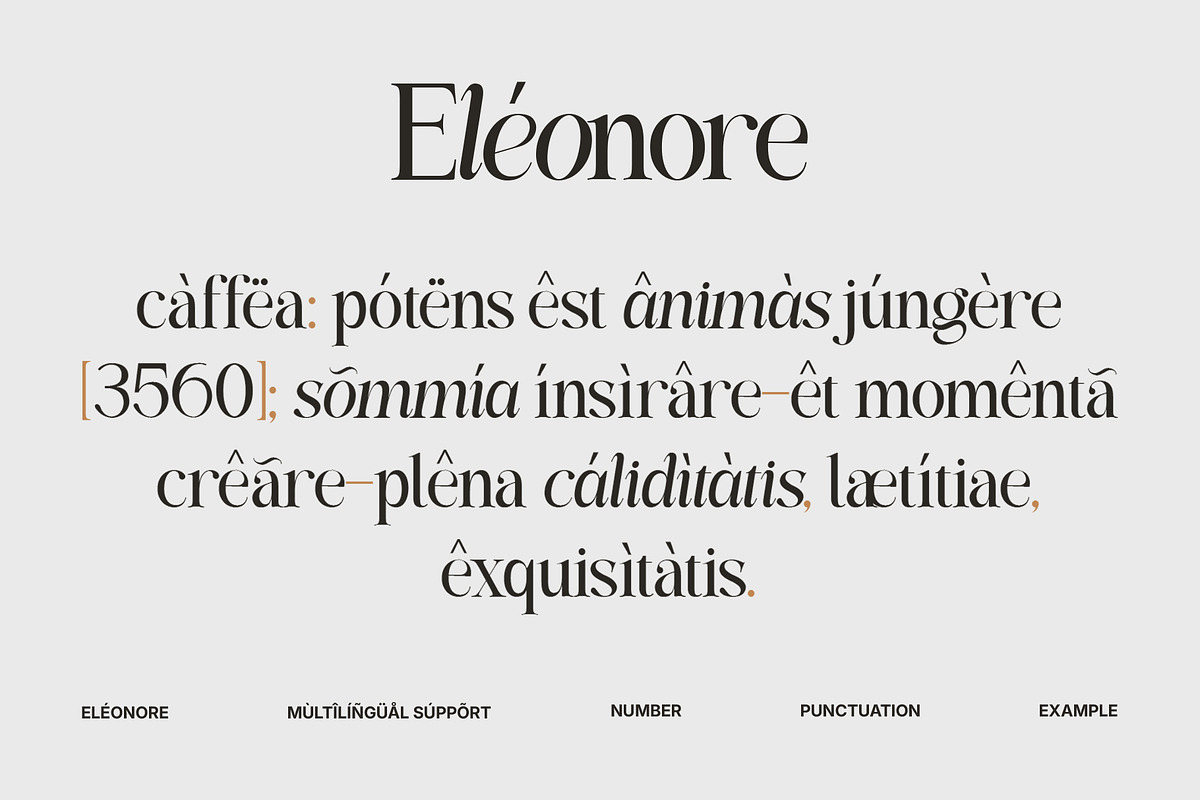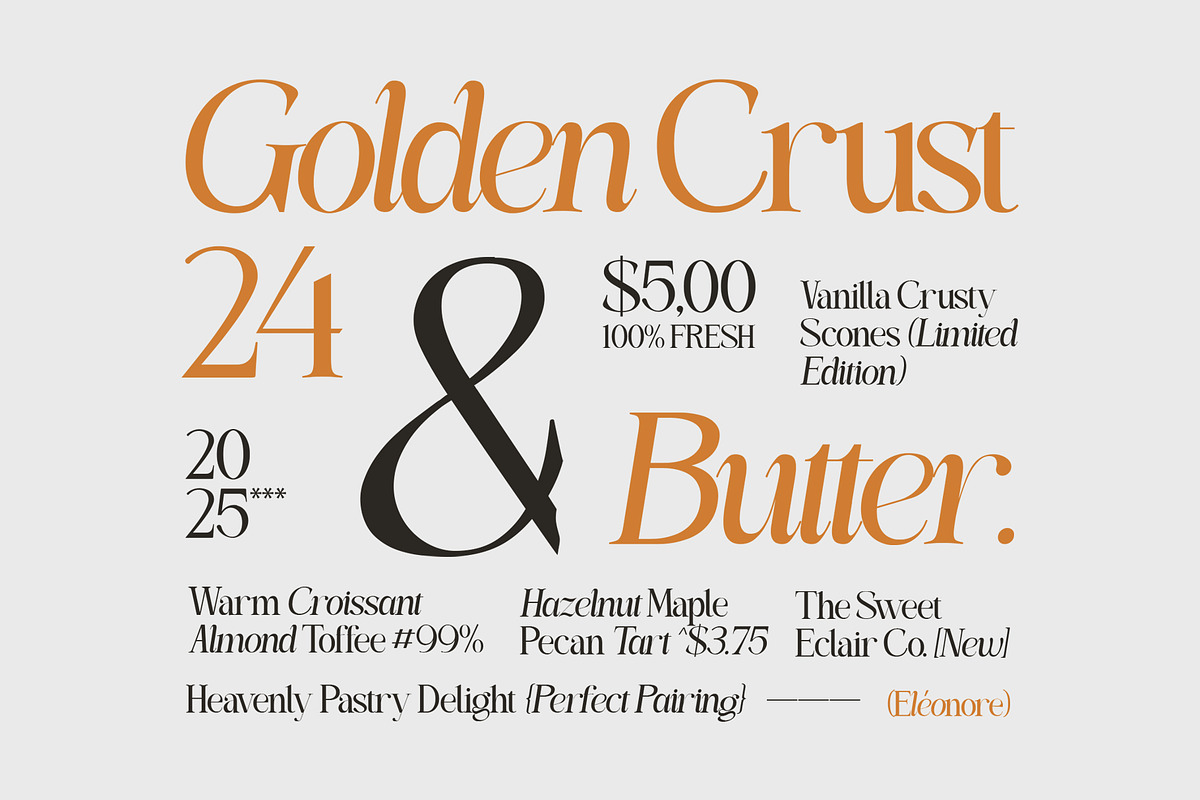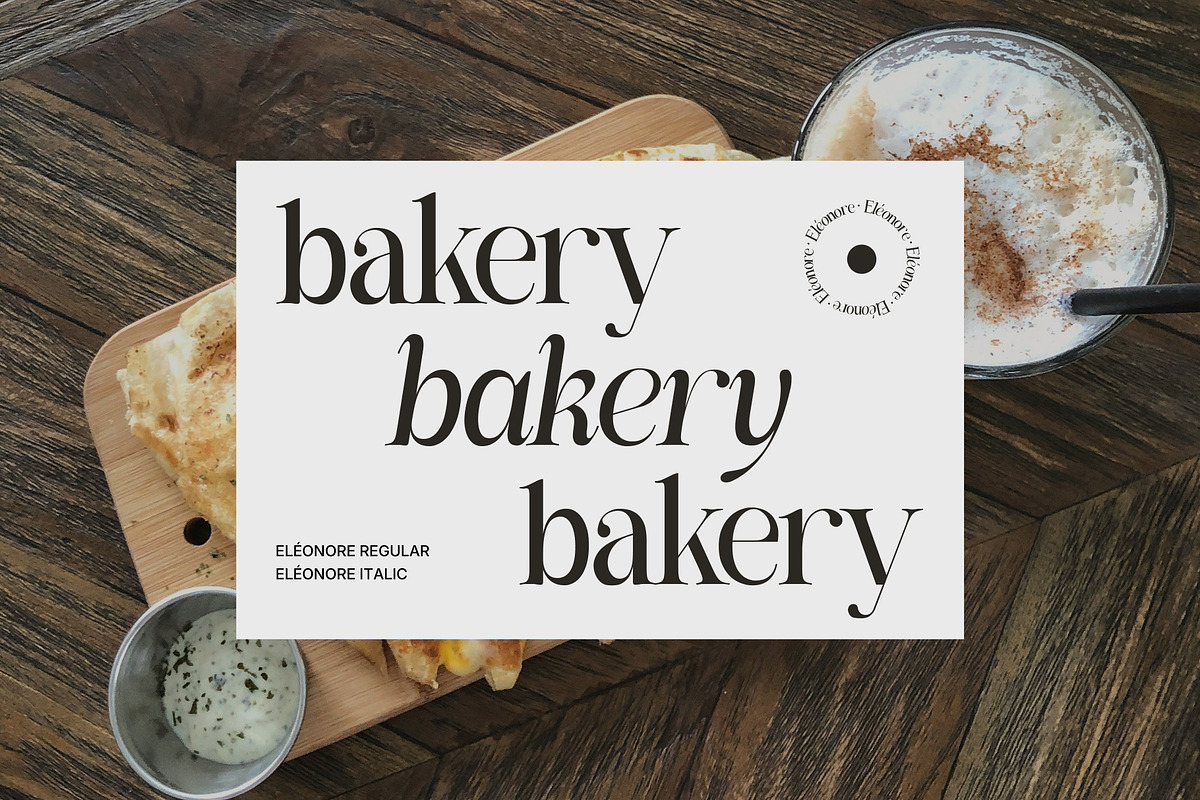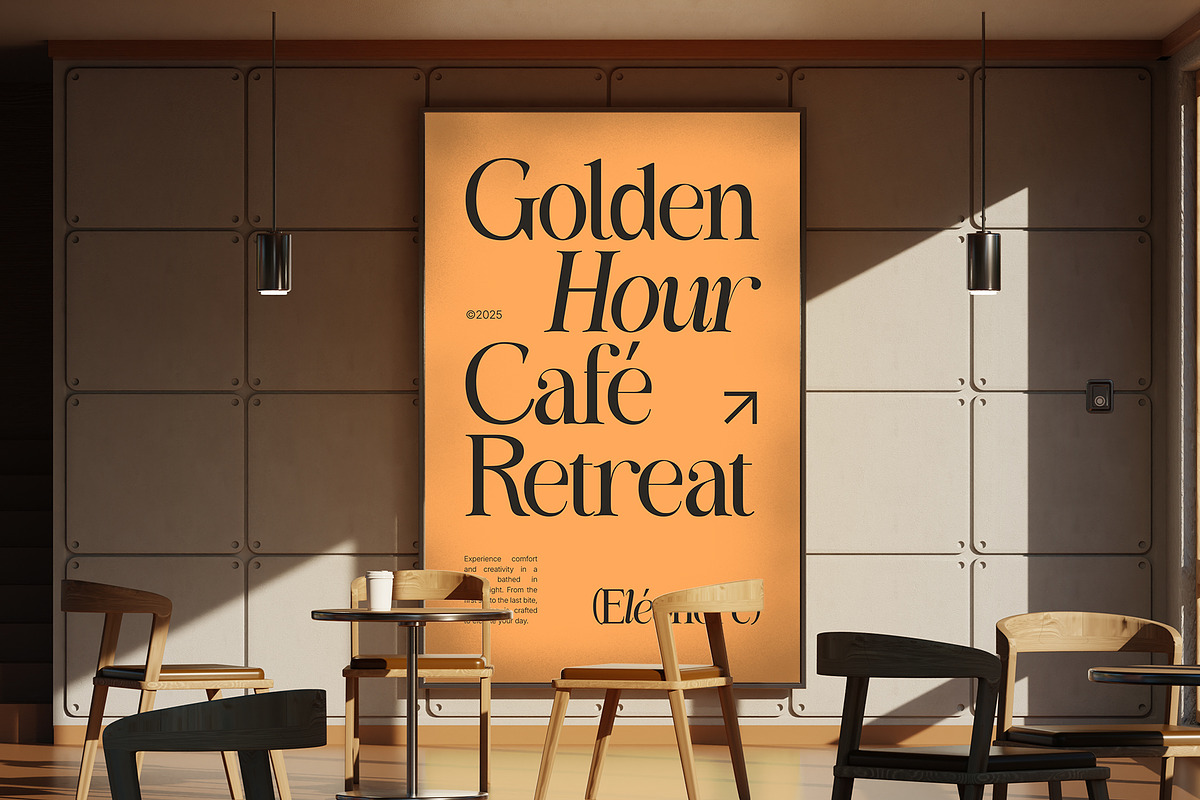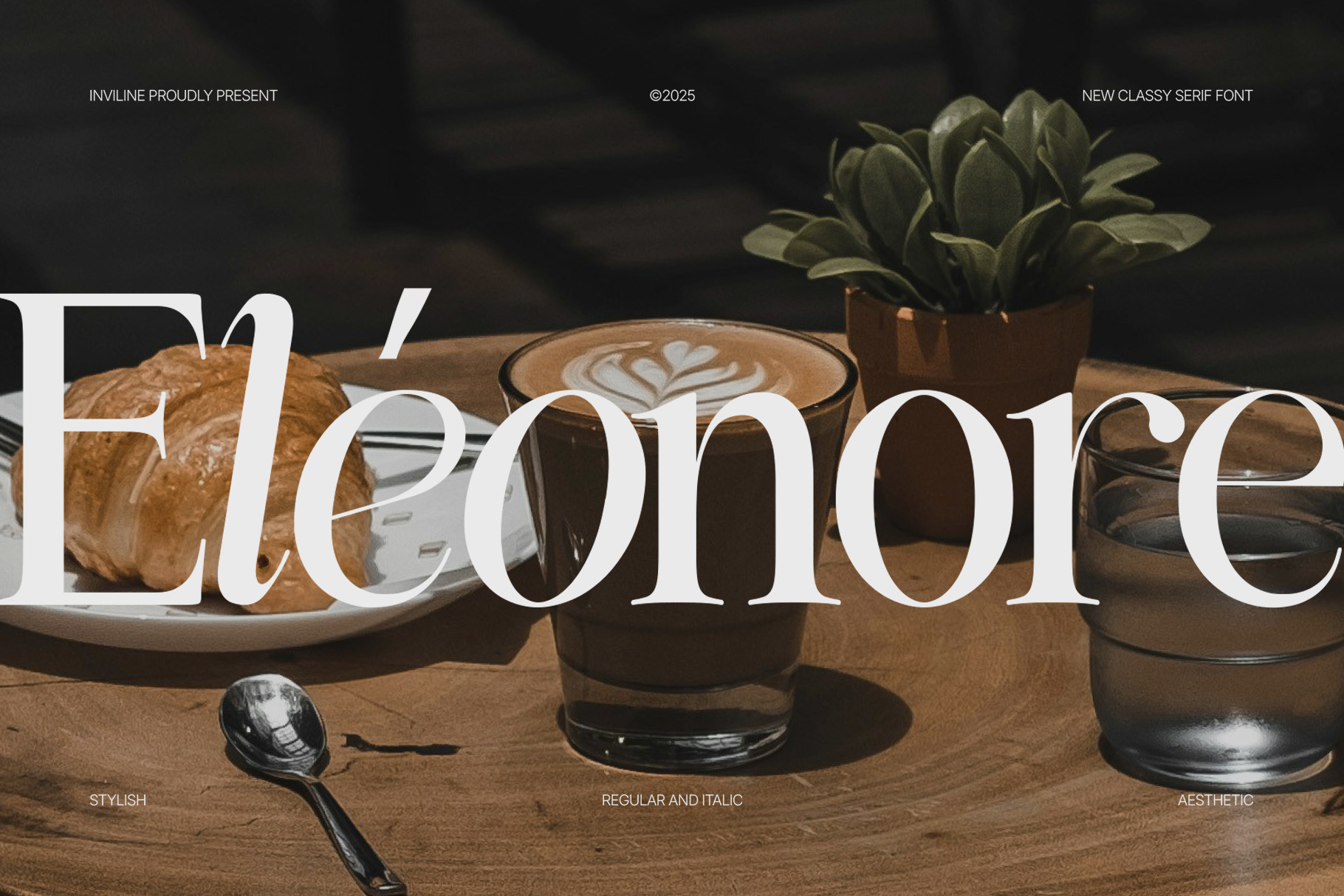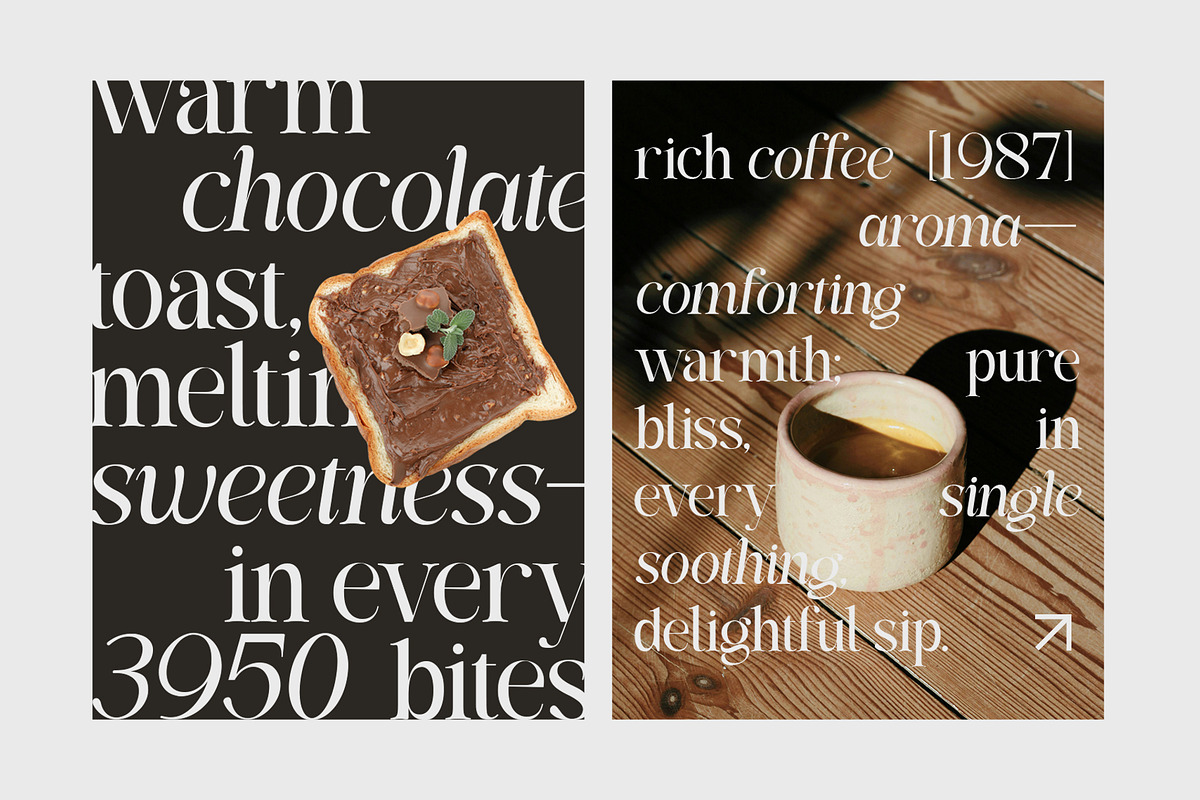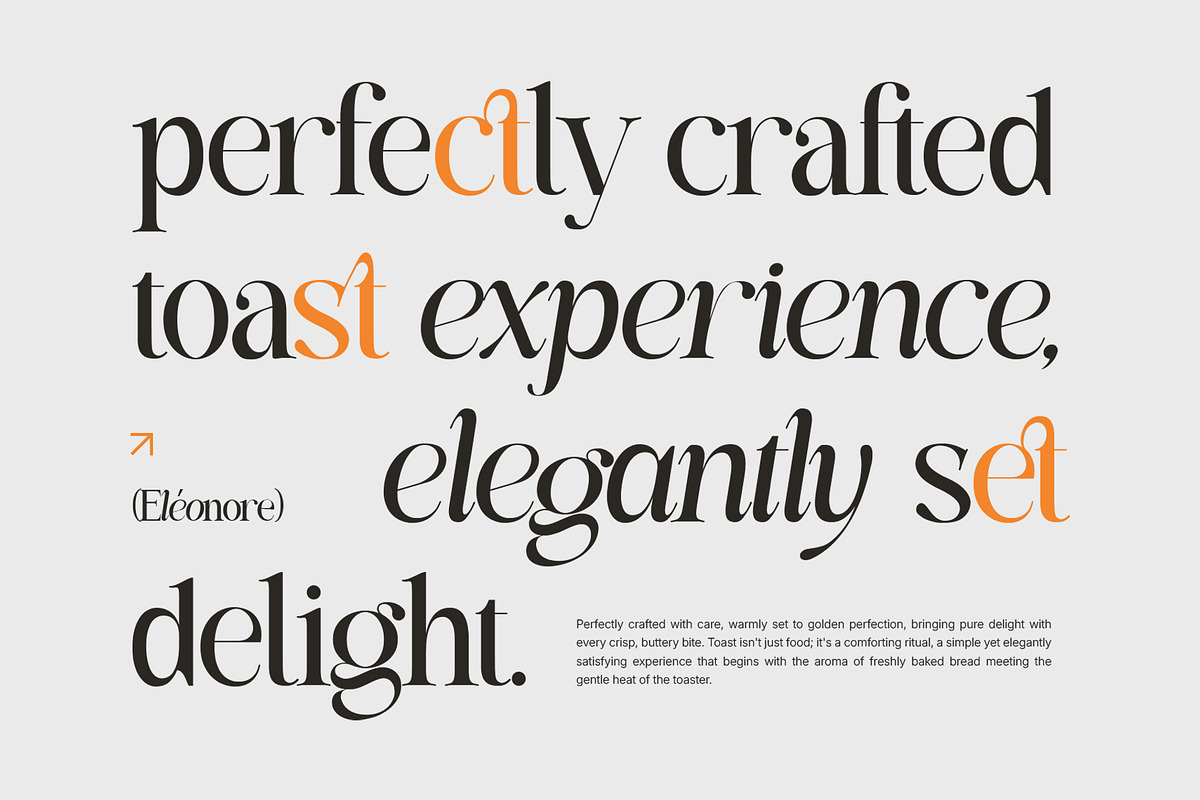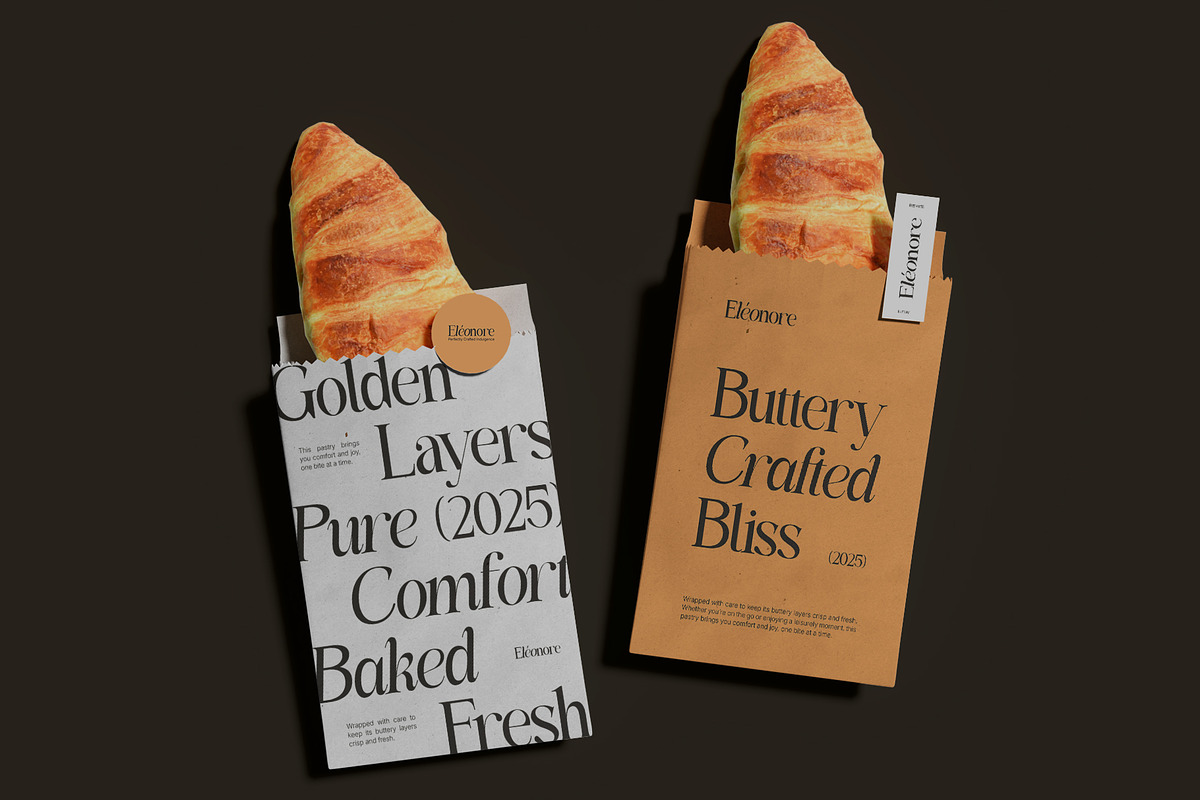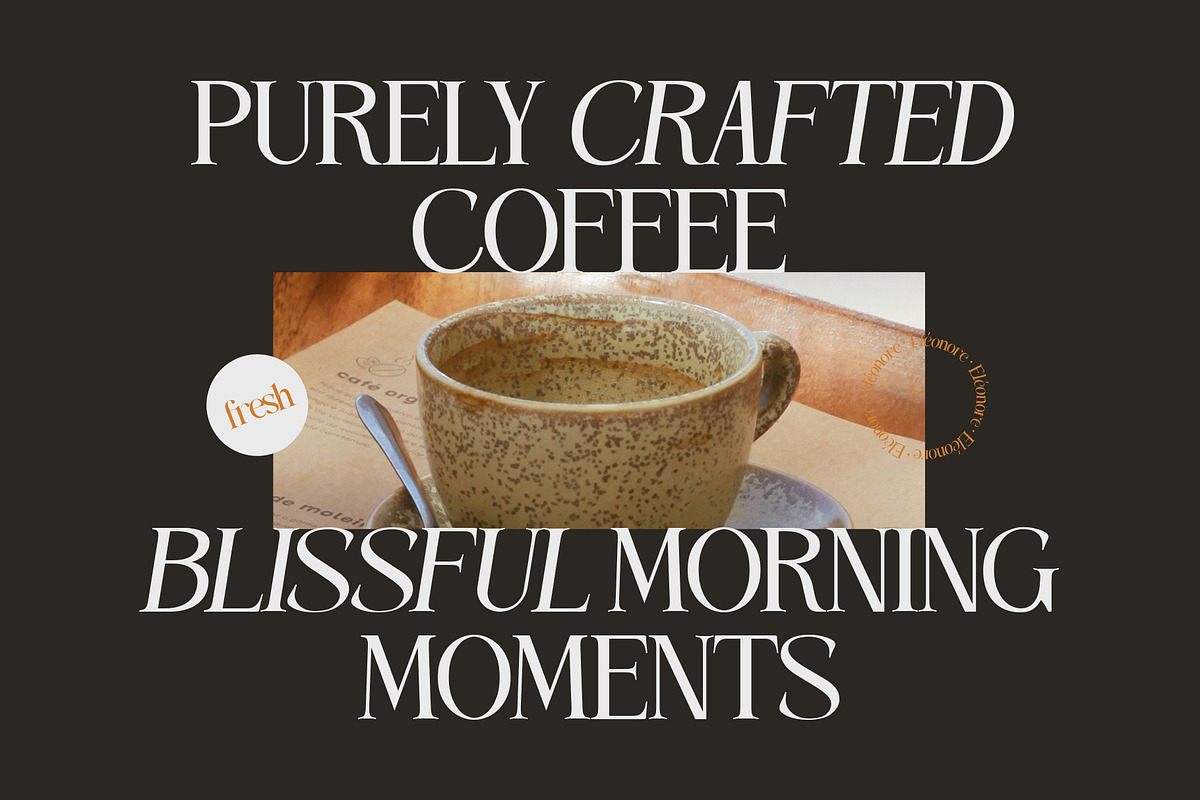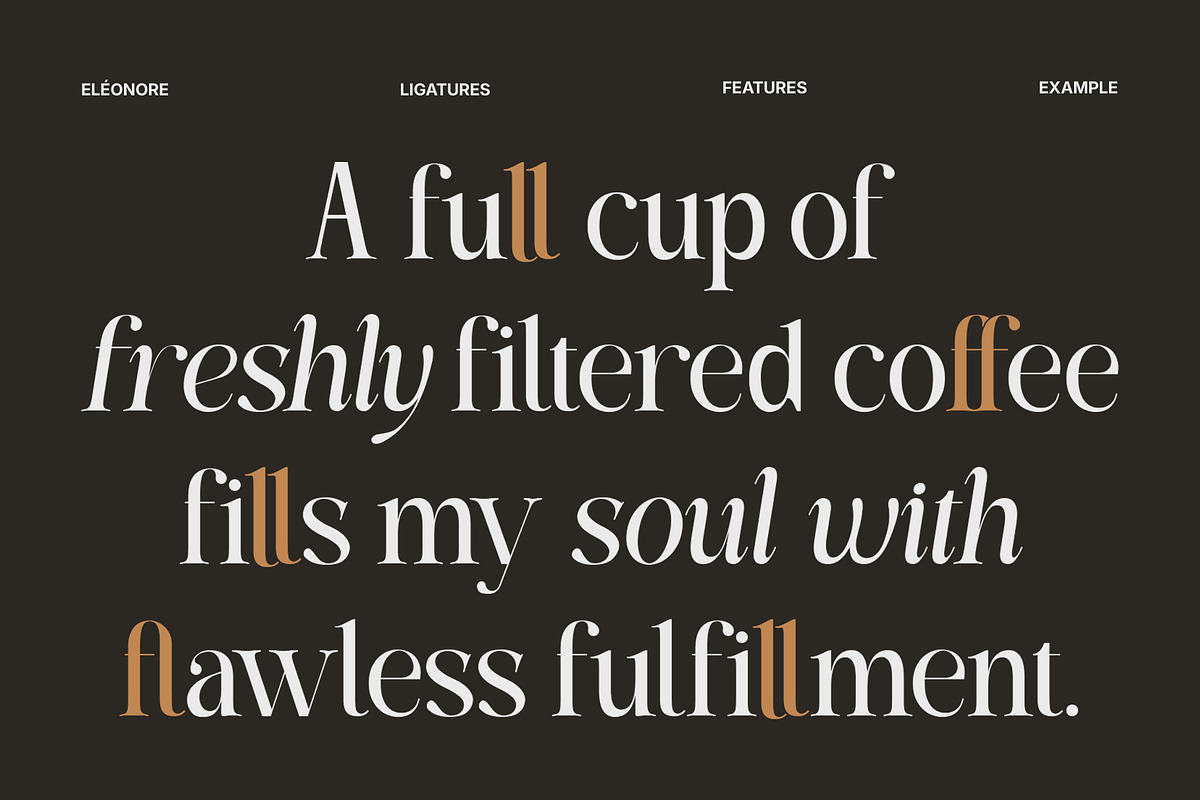
Eléonore – Serif Font for Branding
Eléonore is a classy and elegant serif font crafted for high-end branding and editorial projects. With refined curves, balanced contrast, and a timeless feel, Eléonore brings sophistication and aesthetic grace to every design it touches.
- Modern serif with classic flair
- Available in Regular & Italic styles
- High contrast strokes and soft curves
- Ideal for large display use: logos, titles, headlines
- Multilingual support (Western Europe accents)
Recommended Uses
- Logo & brand identity
- Fashion & lifestyle websites
- Instagram & social media templates
- Editorial layouts & lookbooks
- Luxury packaging & product labels
- Wedding invitations & stationery
- High-end presentations
- Art prints & typographic posters